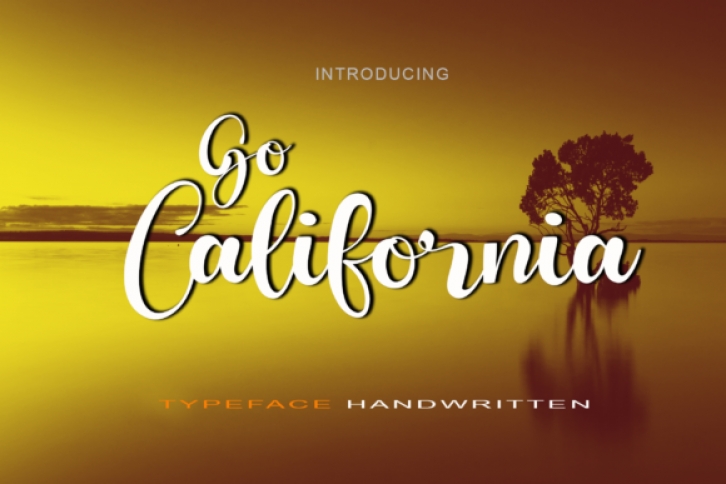
Go California is a dazzling script font with a lovely atmosphere and spotless form, inspired by timeless classic calligraphy. Not too thin and not too thick, balanced and varied, Creative Mothers was designed to enhance the beauty of your projects.